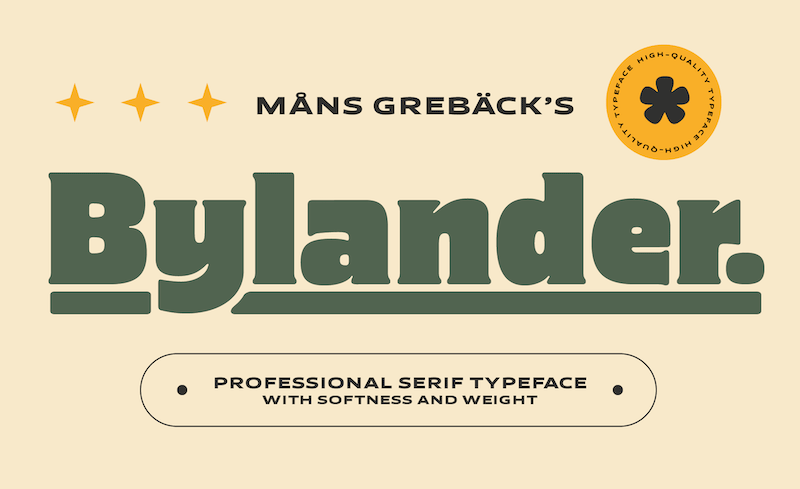
Preview and download Bylander Font. Created by Måns Grebäck in Basic Serif styles with Free for personal use license.
NOTE: This font is for PERSONAL USE ONLY! To purchase a commercial license, visit: http://mn.sg/bylander Bylander is a stateful serif typeface. With robust, heavy letterforms reminiscent of a foundry's hammer hitting molten metal, and an unpaired weight, Bylander's characters seem forged from the core of the Earth. For questions, please visit www.mansgreback.com/faq |